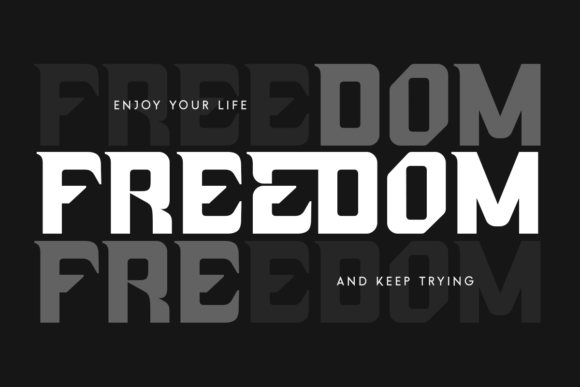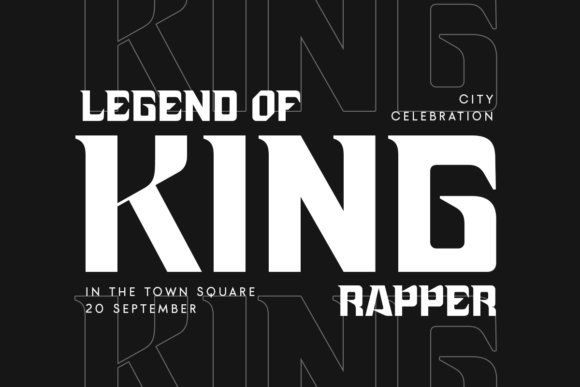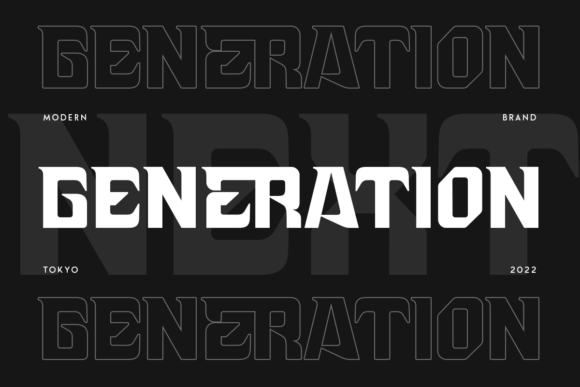
Introduction to Jackhill Font
Jackhill is a cool and unique display font.
Add it to your creative projects and you will love the results .
Key Features of Jackhill Font
Why Choose Jackhill Font?
Jackhill Font offers exceptional quality and versatility, making it a valuable addition to your design toolkit. Whether you’re creating for personal projects or commercial use, Jackhill Font delivers professional results.